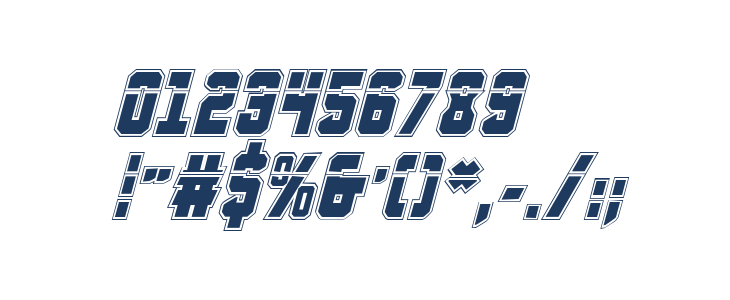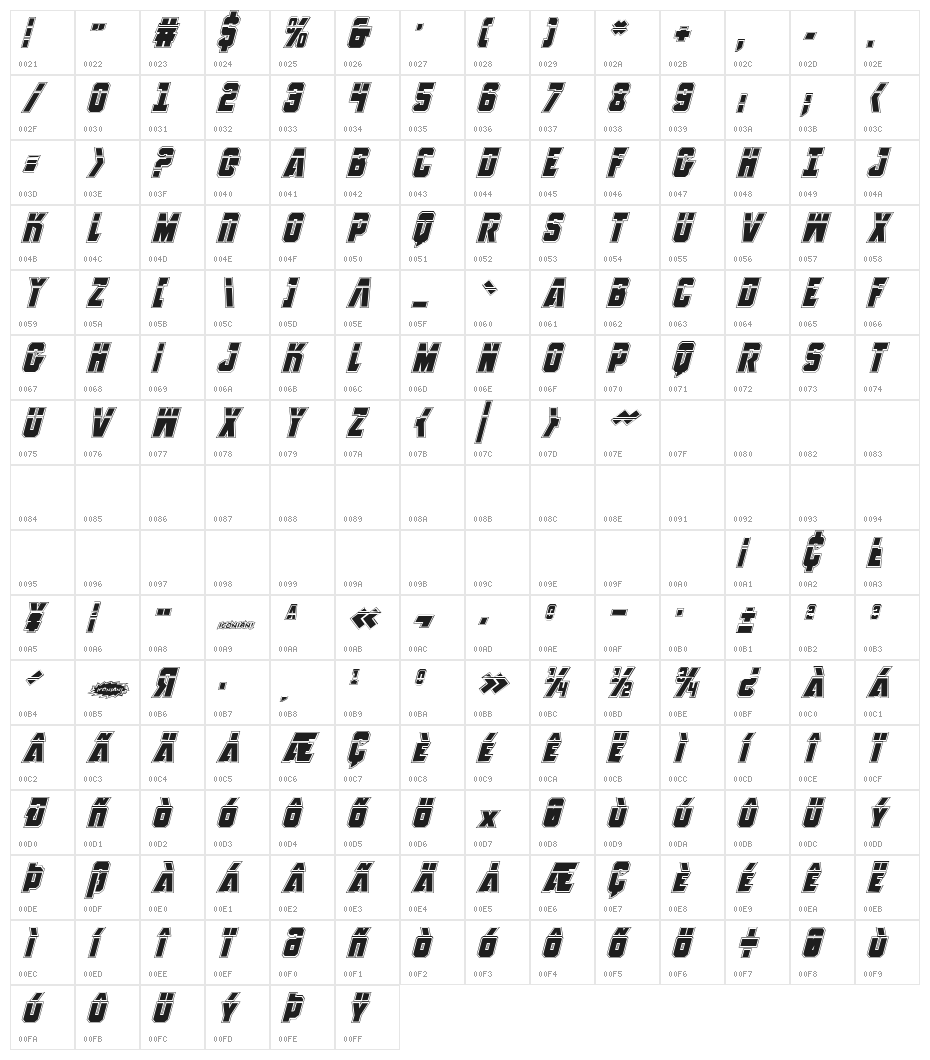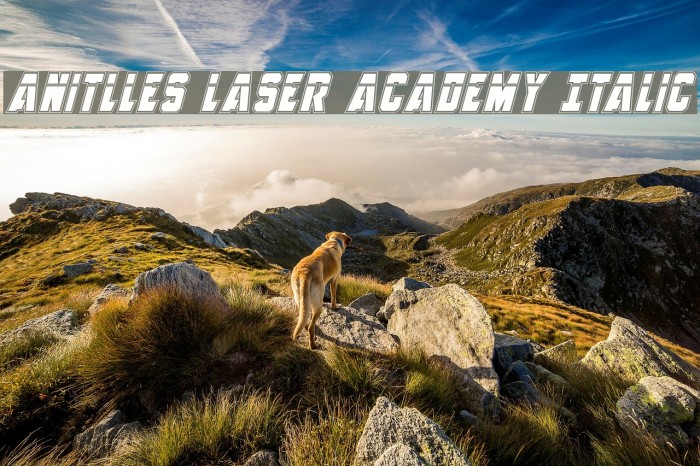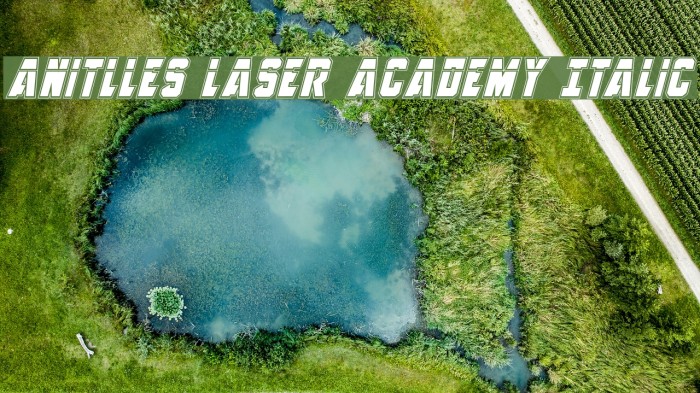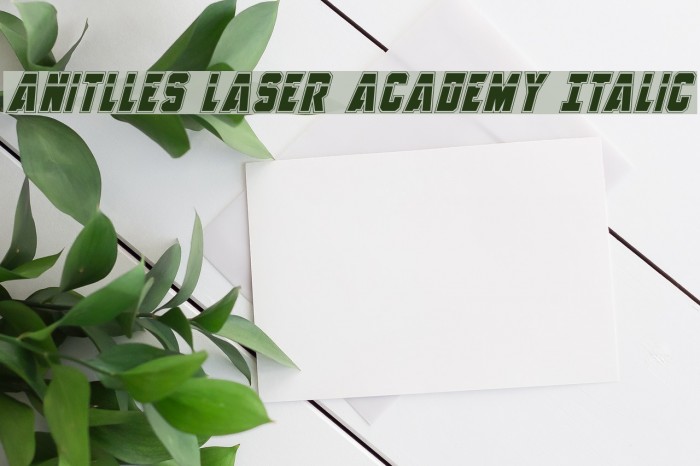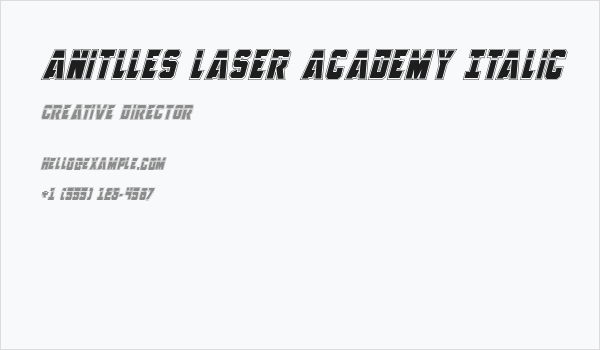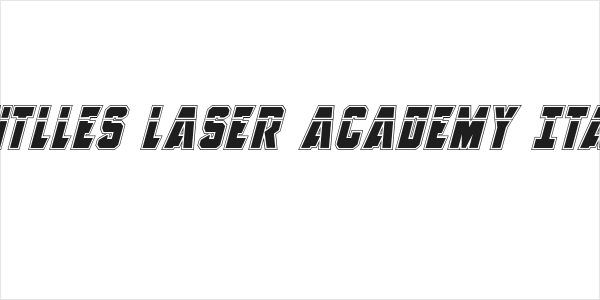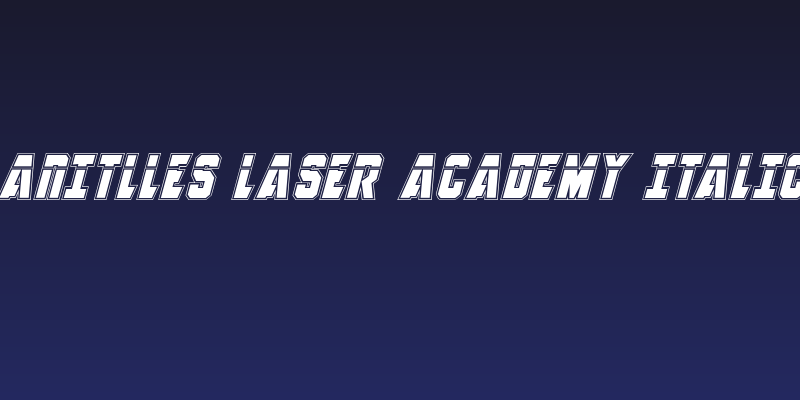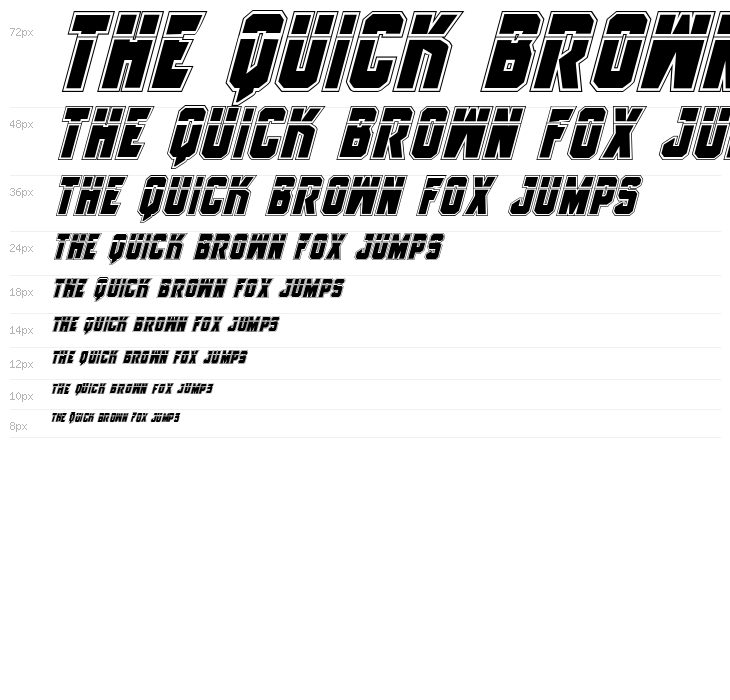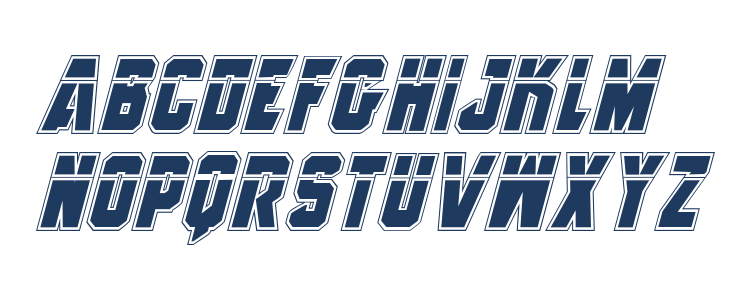
Anitlles Laser Academy Italic Font
Anitlles Laser Academy Italic Description
This font features a bold, dynamic style with a futuristic and angular design. The characters are sharply defined with a distinct outline that gives them a three-dimensional appearance. The italicized slant adds a sense of motion and speed, making it ideal for projects that require a modern and energetic look. The uppercase and lowercase letters are consistent in style, and the numerals are equally bold and striking. Special characters are included, maintaining the same bold and angular aesthetic. This font is perfect for creating eye-catching headlines, posters, and branding materials that need to stand out.
| Proposed Projects | Ideal for sports branding, sci-fi themed posters, video game titles, and dynamic advertising campaigns. |